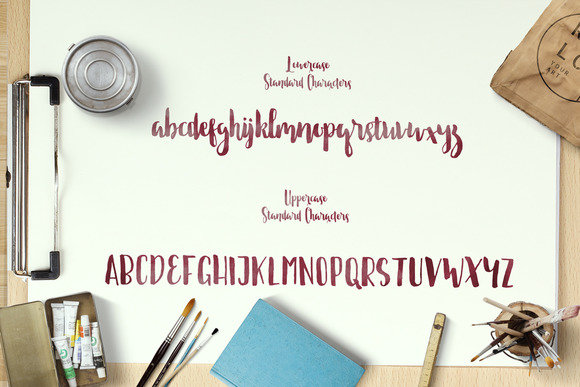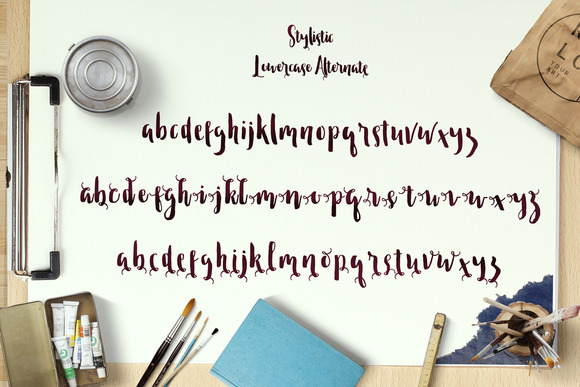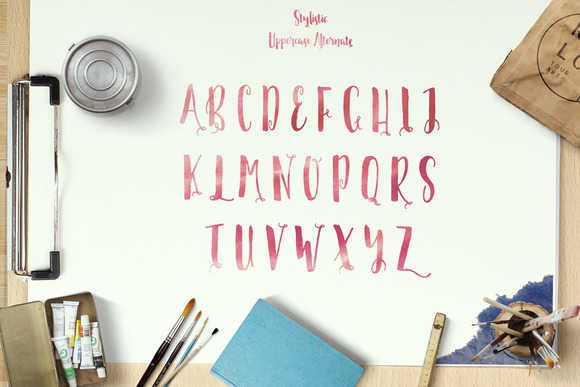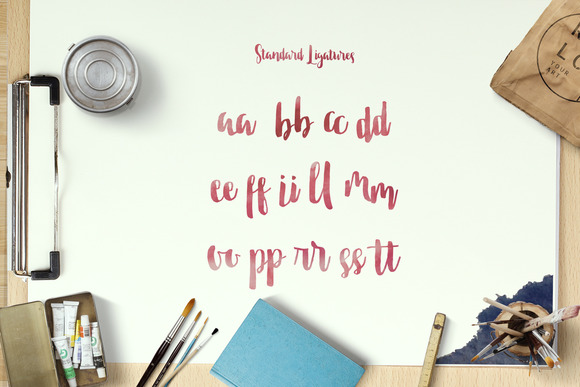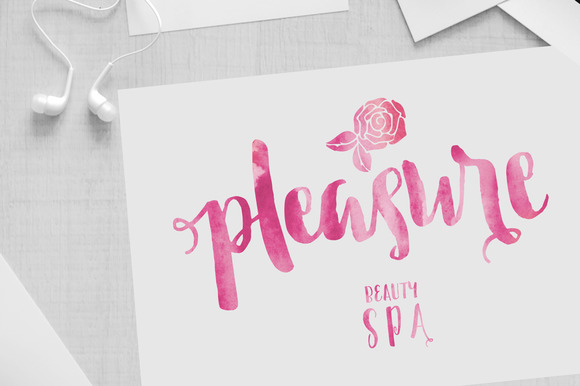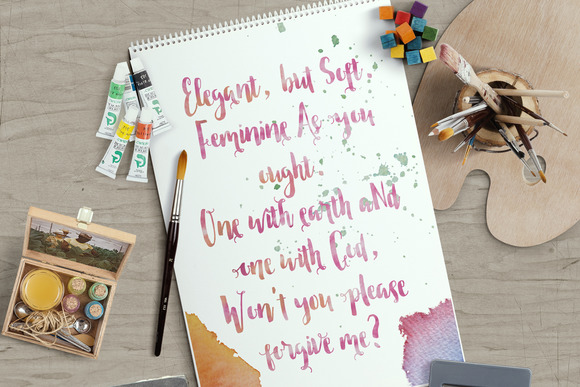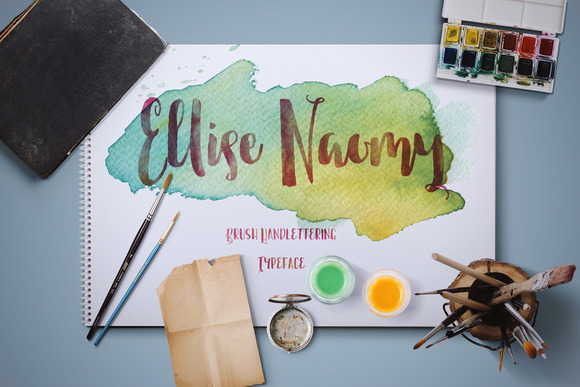
Introducing Ellise Naomy Script Font: A Brush Handlettering Masterpiece
Are you tired of using the same old fonts in your designs? Look no further! Ellise Naomy Script Font is a game-changer for designers and crafters alike. This stunning brush handlettering typeface is sure to elevate your creative projects with its unique and stylistic charm.
What Makes Ellise Naomy Special?
Ellise Naomy is a brush handlettering typeface that boasts a distinctive and captivating style. Each character is carefully crafted with a brush, giving it a lovely and organic feel. The font’s unique handlettering style makes it perfect for adding a personal touch to your designs, whether it’s for a logo, invitation, or social media post.
PUA Encoded for Easy Use
One of the best things about Ellise Naomy is that it’s PUA (Private Use Area) encoded. This means that you can easily access and use the font’s special characters and glyphs without any hassle. With PUA encoding, you can unlock the full potential of the font and take your designs to the next level.
Ellise Naomy Script Font is a versatile font that’s suitable for a wide range of creative projects. Whether you’re a designer, crafter, or DIY enthusiast, this font is sure to inspire your next project. Use it to create:
- Beautiful wedding invitations and stationery
- Eye-catching logos and branding materials
- Stunning social media graphics and quotes
- Unique craft patterns and tutorials
Why Choose Ellise Naomy?
With so many fonts available, why choose Ellise Naomy? Here are just a few reasons:
- Unique Style: Ellise Naomy’s brush handlettering style is unlike any other font out there. Its distinctive charm is sure to set your designs apart.
- Ease of Use: The font’s PUA encoding makes it easy to use and access its special characters and glyphs.
- Versatility: Ellise Naomy is suitable for a wide range of creative projects, from digital designs to print materials.
- High-Quality: The font is crafted with love and care, ensuring that it’s of the highest quality and perfect for professional designs.
Tips for Using Ellise Naomy
To get the most out of Ellise Naomy Script Font, here are a few tips:
- Experiment with Sizes: Try using the font in different sizes to create visual interest and hierarchy in your designs.
- Play with Colors: Ellise Naomy looks great in a variety of colors, so don’t be afraid to experiment and find the perfect hue for your design.
- Mix and Match: Combine Ellise Naomy with other fonts to create a unique and eye-catching typography.